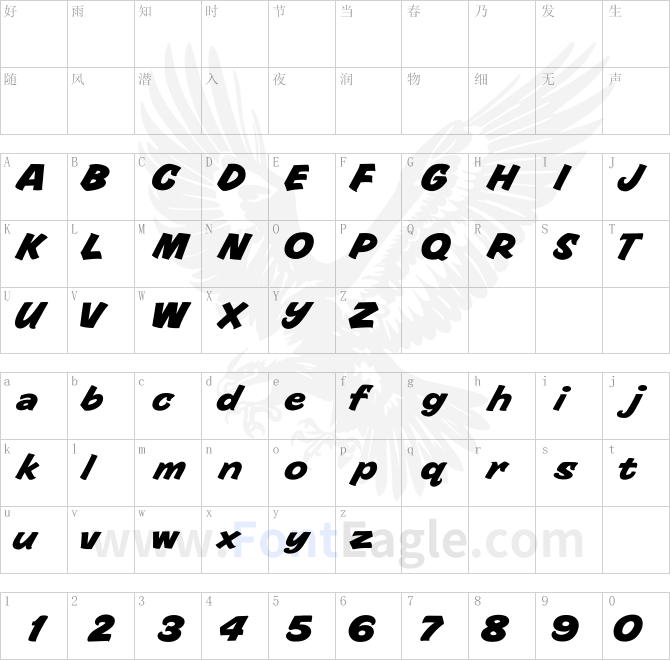
- Font name:Sale-Italic
- Font Full Name:Sale-Italic
- Postscript:Sale-Italic
- Font Copyright:Copyright Tony Booth, 1996. Published by FontShop International FontFont release 18